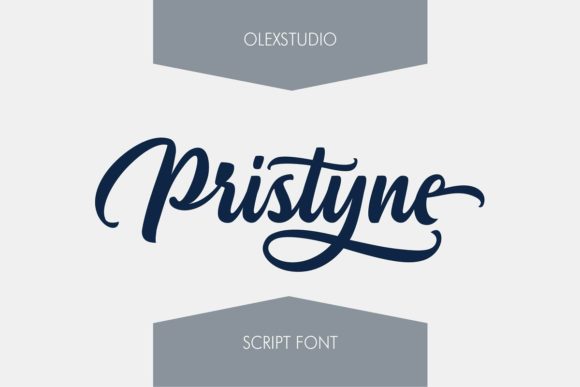
Step into the world of Pristyne Font, a captivating script font that exudes both charm and elegance. Inspired by the timeless art of calligraphy, Pristyne's varying baseline, smooth lines, and graceful glyphs create a visual masterpiece that will elevate your designs to new heights.
Unleash your creativity with this stunning script font, perfect for branding, headings, wedding designs, invitations, signatures, logos, labels, and more. Its versatility knows no bounds, allowing you to effortlessly transform ordinary projects into extraordinary masterpieces.
With Pristyne Font, your designs will radiate a sense of sophistication and charm that is sure to leave a lasting impression. Let your words dance across the page with the grace and elegance of Pristyne, captivating your audience with its timeless beauty.
So, embrace the allure of Pristyne Font and embark on a creative journey where imagination meets elegance. Transform your designs into works of art, leaving your audience spellbound by the sheer brilliance of your creations.